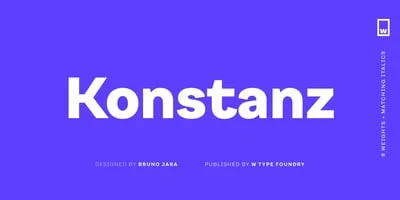
Konstanz Font
Konstanz Font is perfectly designed for academic publications, university branding, museum exhibitions, cultural institution materials, historical documentaries, scholarly book covers, research presentations, and sophisticated educational content requiring timeless elegance.
Konstanz Font creates excitement through its refined Germanic heritage and scholarly sophistication that reflects centuries of typographic tradition. This typeface captivates with its balanced proportions and intellectual character, embodying the academic excellence and cultural richness associated with European educational institutions.
Konstanz Font family encompasses comprehensive typographic options including Regular, Medium, Bold, Light, Italic, and Small Caps variations. Additional OpenType features provide advanced typography capabilities for professional publishing, ensuring optimal readability in both print and digital academic environments.
The scholarly elegance of Konstanz Font makes it indispensable for projects demanding intellectual credibility and cultural sophistication. This versatile typeface seamlessly bridges classical typography traditions with contemporary design requirements, delivering exceptional performance in academic and cultural communications that require lasting respect.
Educational institutions consistently select Konstanz Font for materials requiring authoritative presentation. Its classical proportions and refined character make it perfect for universities, libraries, museums, and cultural organizations seeking typography that conveys knowledge, tradition, and academic excellence across all communication platforms.